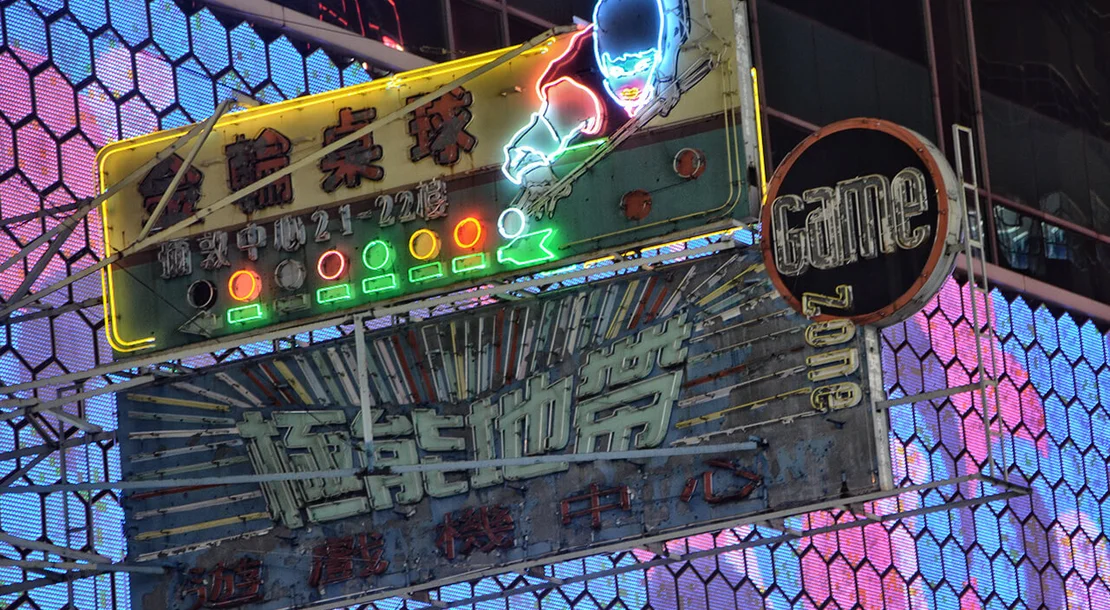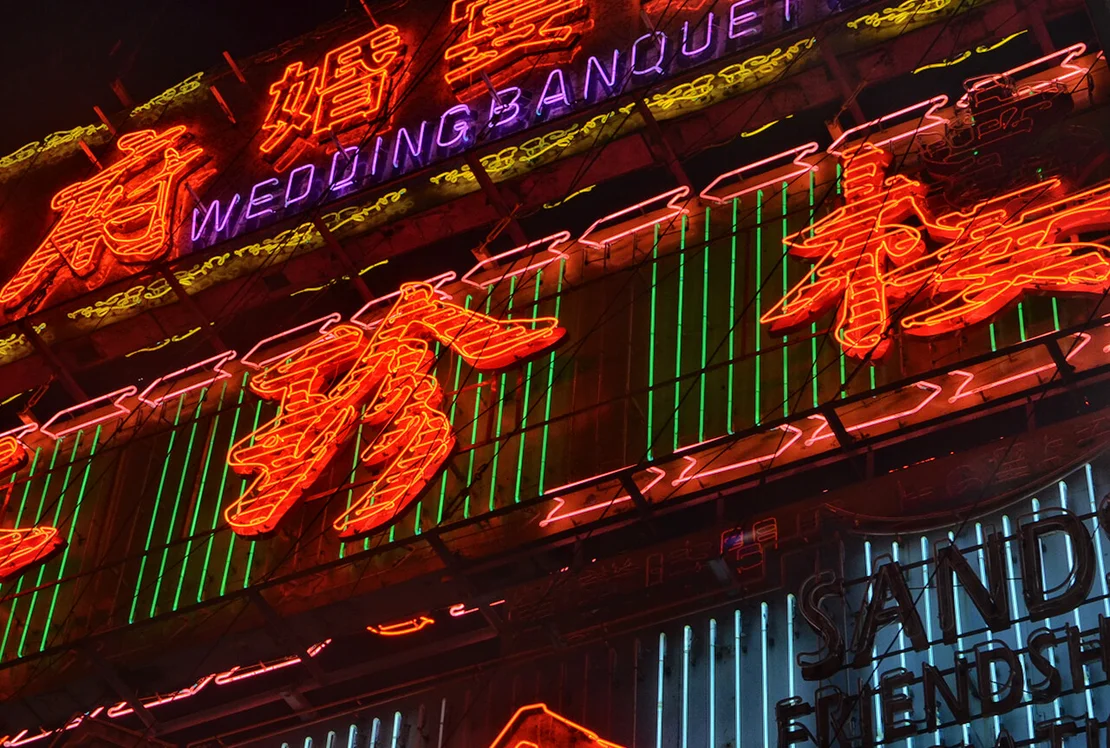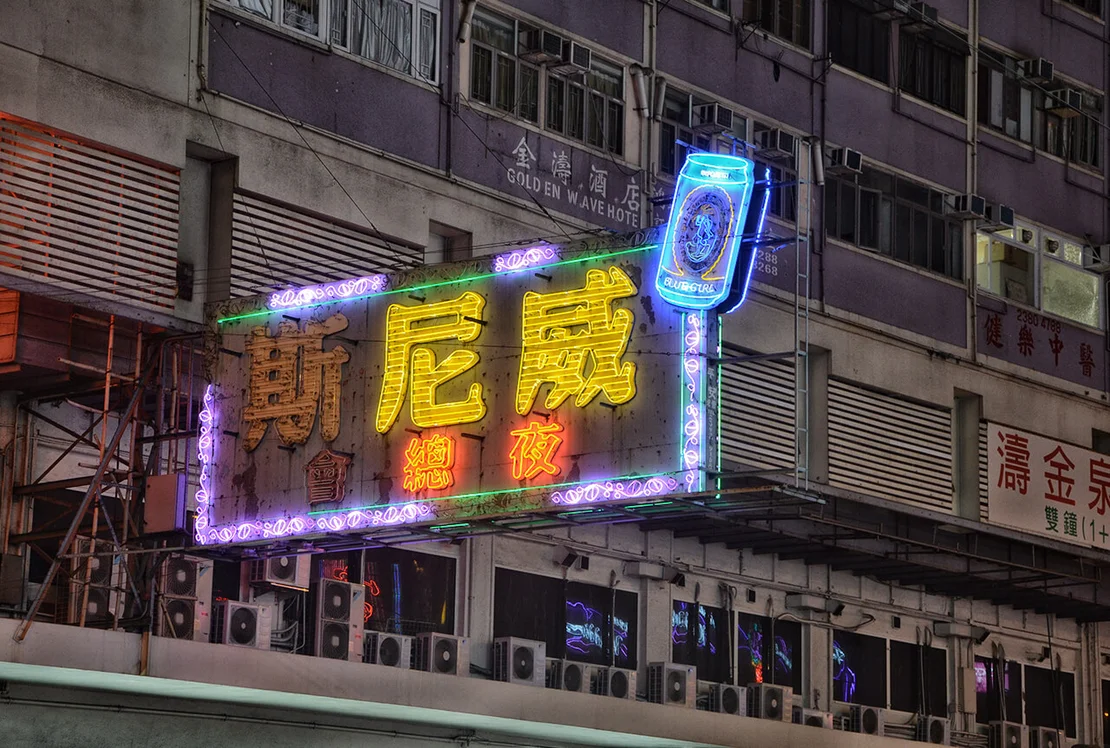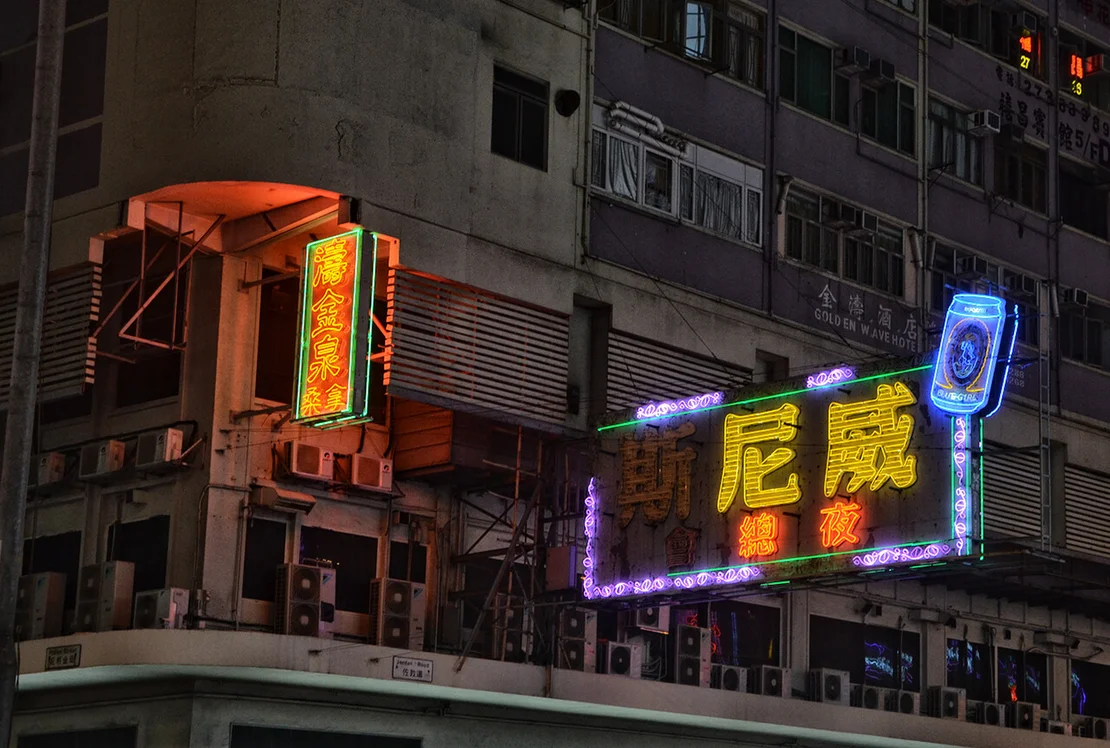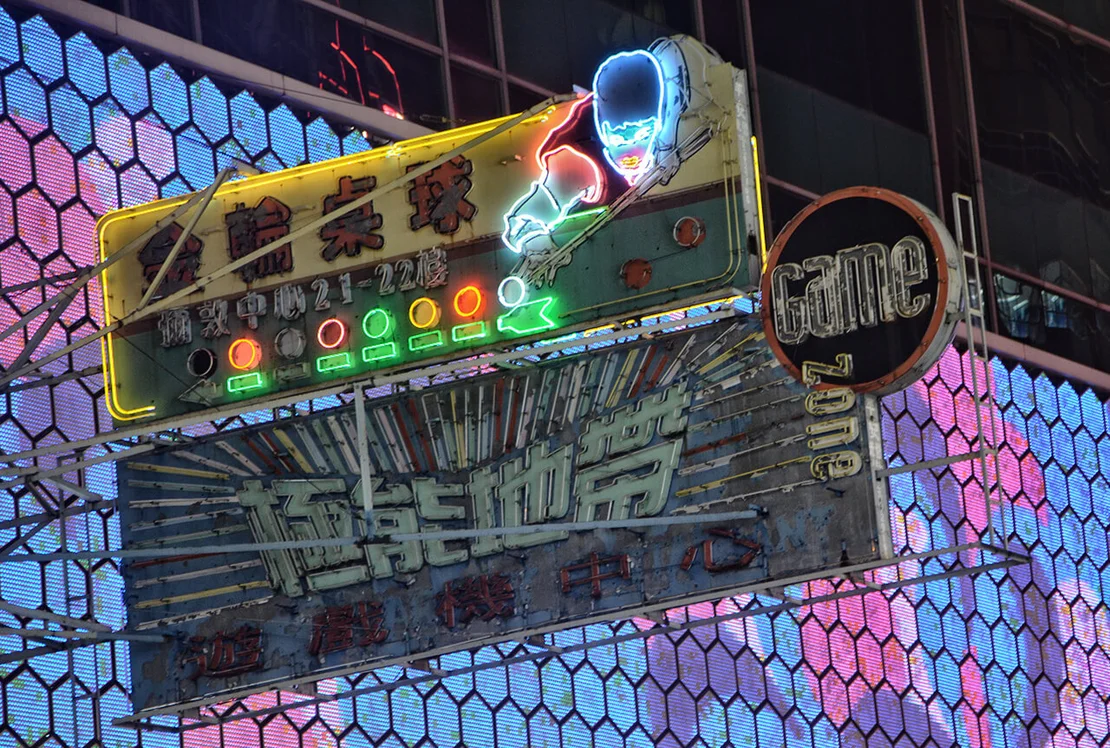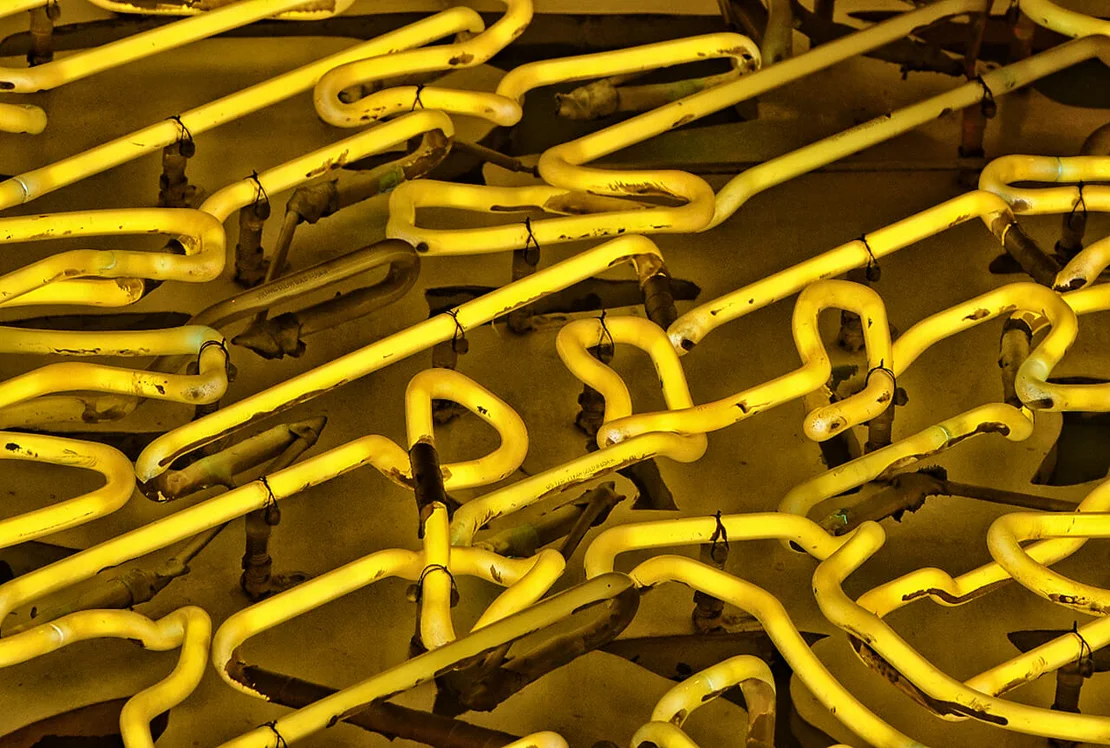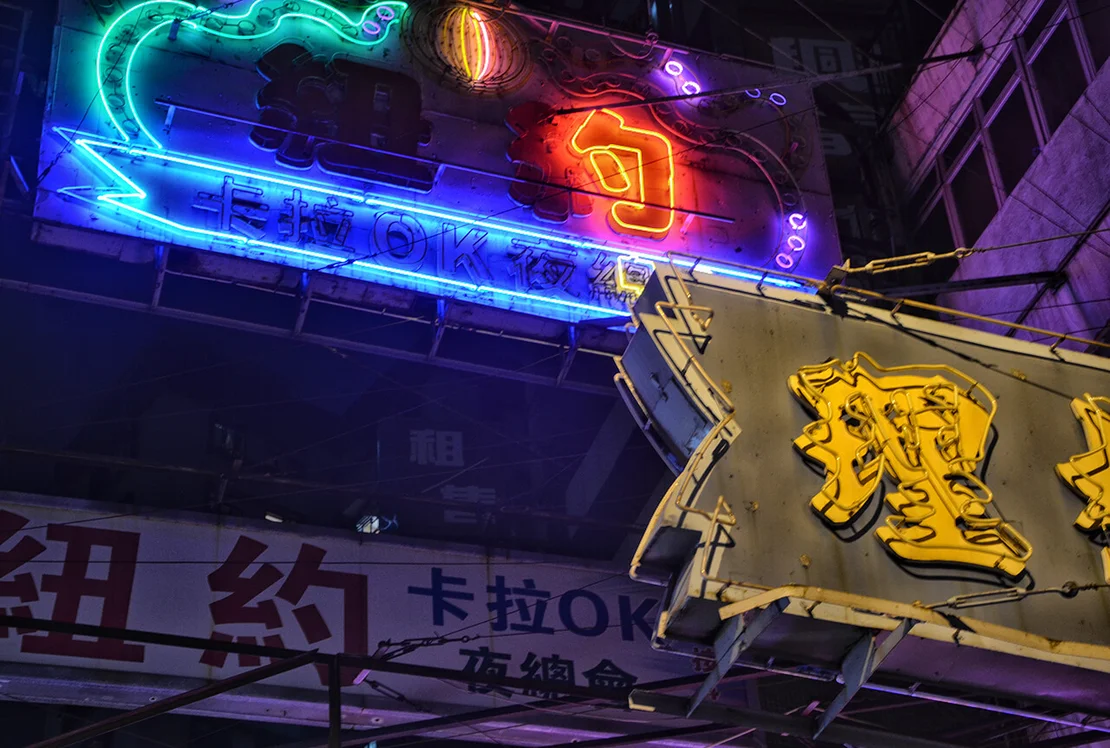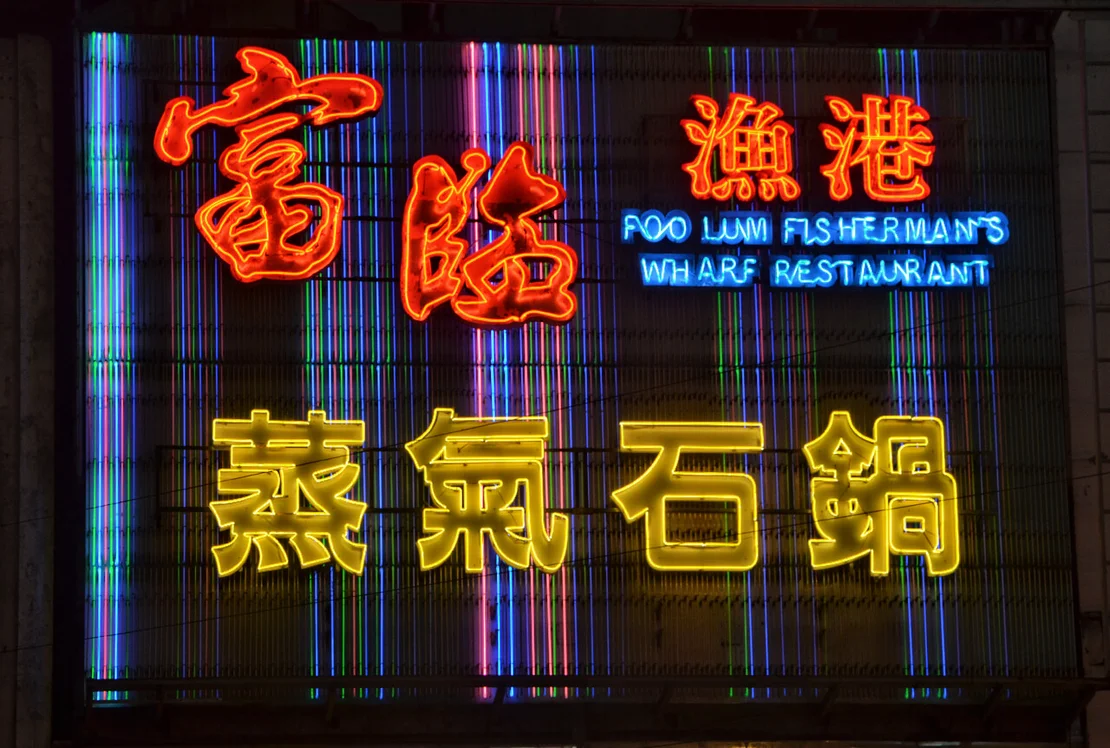
Hong Kong Neon
The colours of Wong Kar-Wai
Between the 1950s and the 1980s, neon signage flourished in Hong Kong, profoundly shaping the city’s urban image. Vast installations cast the streets in a distinctive, almost mystical glow—an effect unique to the flickering gases within neon tubes. In 1995, filmmaker Wong Kar-wai employed this luminous atmosphere as a defining visual element in Fallen Angels, thereby creating a lasting tribute to the city’s typographic landscape.
From the late 1990s onwards, demand for neon advertising declined, as producers increasingly relocated to mainland China in search of lower production costs. At the same time, emerging LED technologies and a growing awareness of light pollution placed mounting pressure on the often informally installed neon structures. From 2006 onwards, Hong Kong’s municipal authorities removed an average of 3,000 such installations each year.
In December 2017, I travelled to Hong Kong to document the remaining neon signs. My explorations took me across all parts of the city; night after night, I followed the glow of this distinctive medium. Although Hong Kong’s neon may be in decline, it has lost none of its enduring fascination.